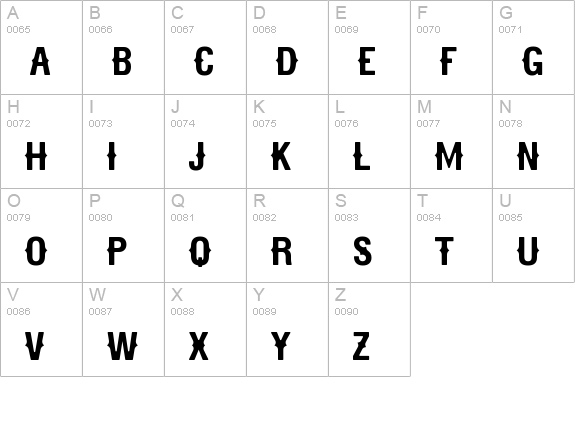
ModernWhiskey_1 font is a sleek and stylish typeface that exudes sophistication and elegance. With its clean lines and contemporary design, this font is perfect for a wide range of design projects, from branding to packaging to web design. The unique combination of modern and classic elements makes ModernWhiskey_1 font versatile and eye-catching. What's even better is that ModernWhiskey_1 font is available for free download at FontsMarket.com. Whether you're a professional designer looking for a new addition to your font library or a hobbyist exploring typography, this font is a must-have. Don't miss out on the opportunity to elevate your projects with the timeless charm of ModernWhiskey_1 font. Download it for free today and let your creativity soar!